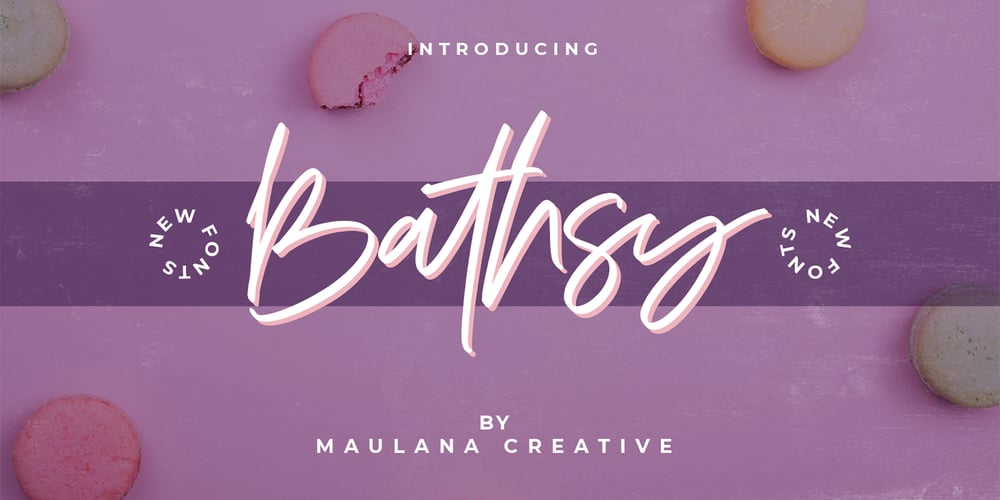
Bathsy Font Family was designed by Gilang Maulana and published by Maulana Creative. Bathsy contains 1 styles and family package options. Bathsy Signature Brush Script FontGive your designs an authentic handcrafted feel. “Bathsy Signature Brush Script Font” is perfectly suited to signature, stationery, logo, typography quotes, magazine or book cover, website header, clothing, branding, packaging design and more.